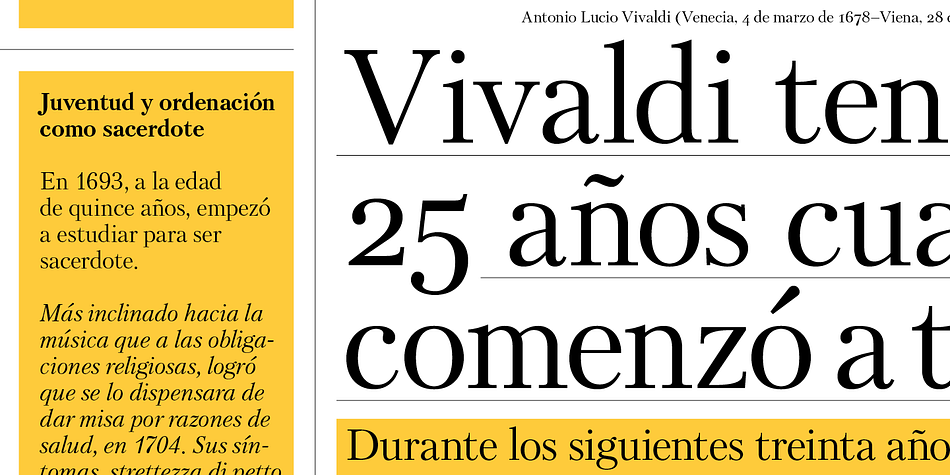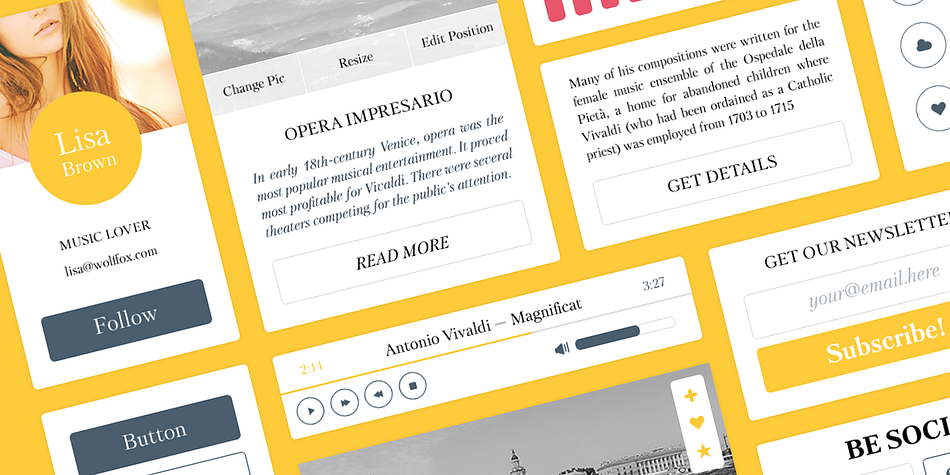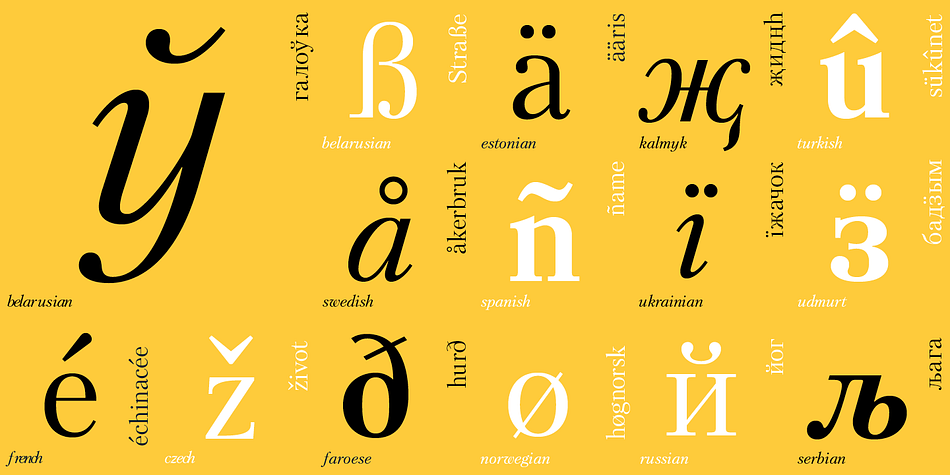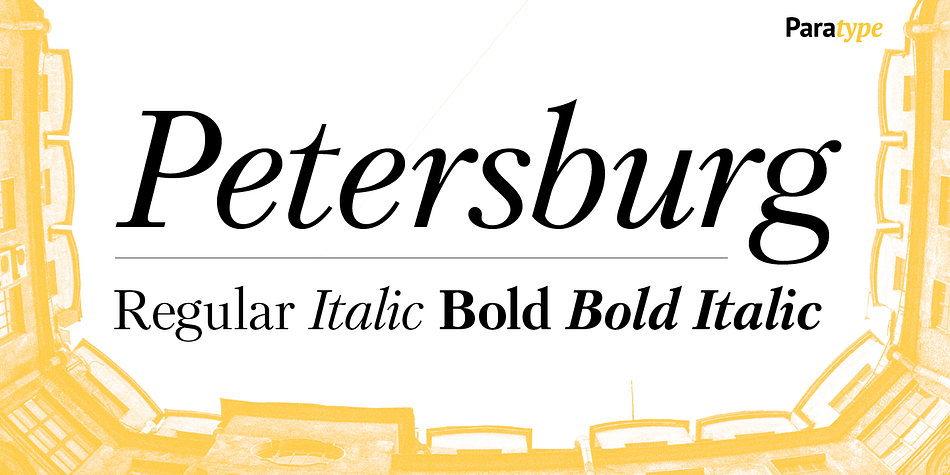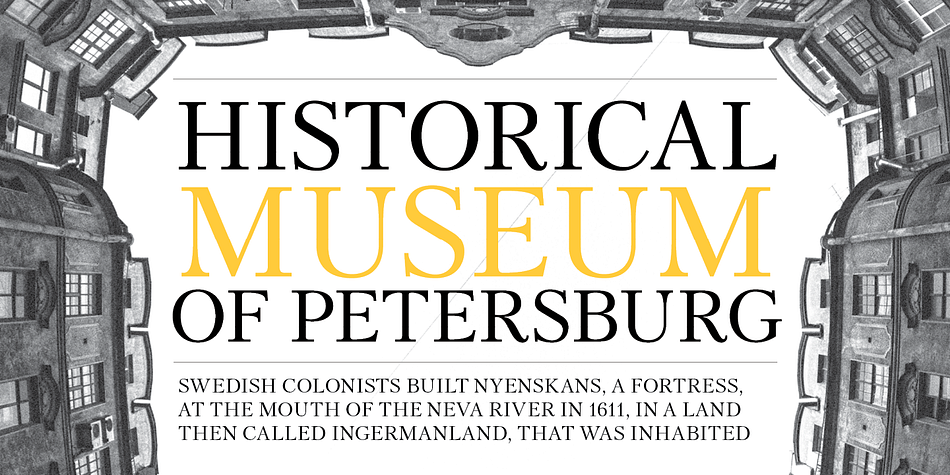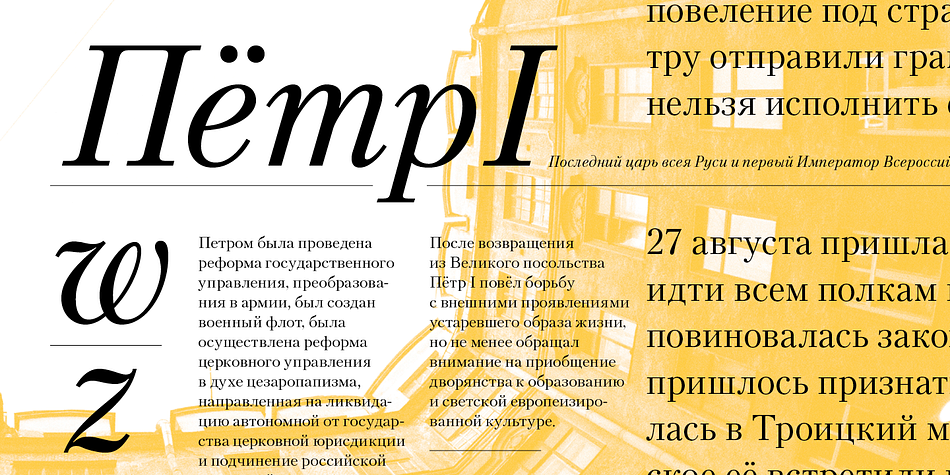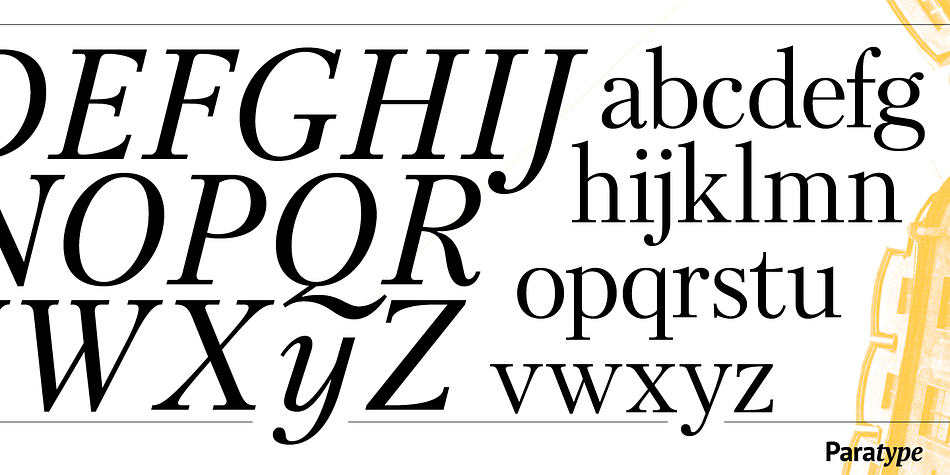
Designed by Vladimir Yefimov, Petersburg is a serif font family. This typeface has four styles and was published by ParaType.
Designed at ParaType (ParaGraph) in 1992 by Vladimir Yefimov. Based on Kudryashevskaya Encyclopedicheskaya of Polygraphmash, 1960–74, a typeface by Nikolai Kudryashev and Zinaida Maslennikova. A very lightweight style with neutral letterforms, it is quite space-saving. Excellent for long texts, headings and display typography.